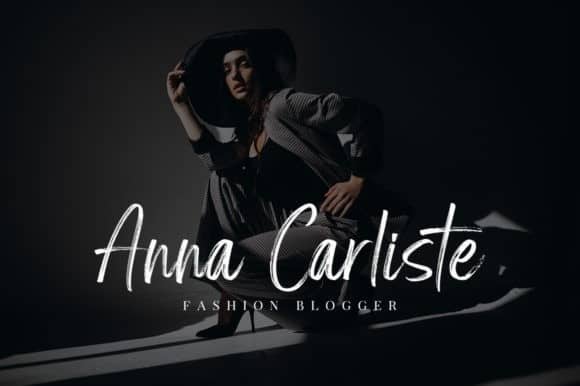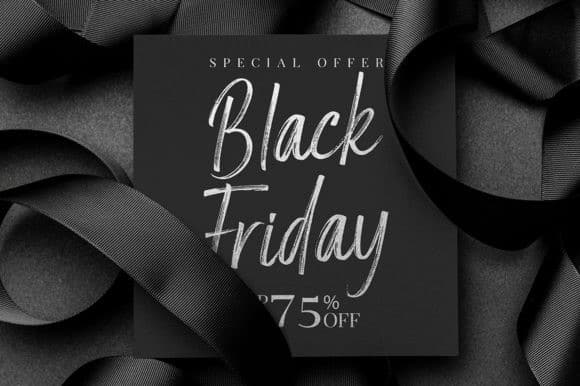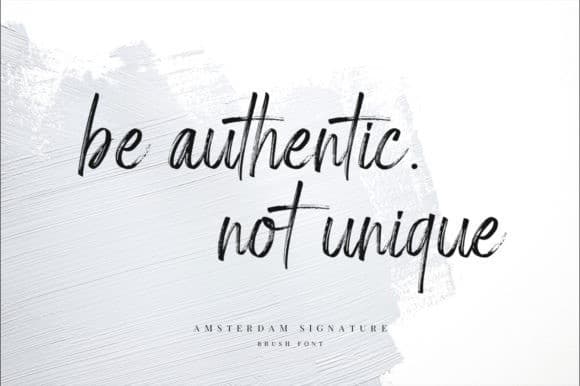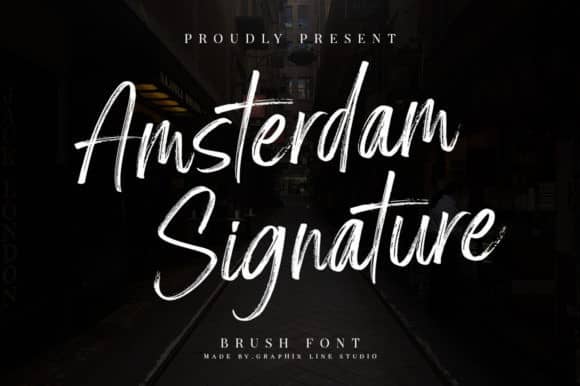
Amsterdam Signature Brush Font
Amsterdam Signature Brush Font is a casual display font created by Graphix Line Studio, created by using a dry brush pen. This Typeface is an incredibly versatile and flowing handwritten brushed font. With its neat and beautiful arrangement of letters, this font is perfect for creating logos and watermarks for photography or branding.